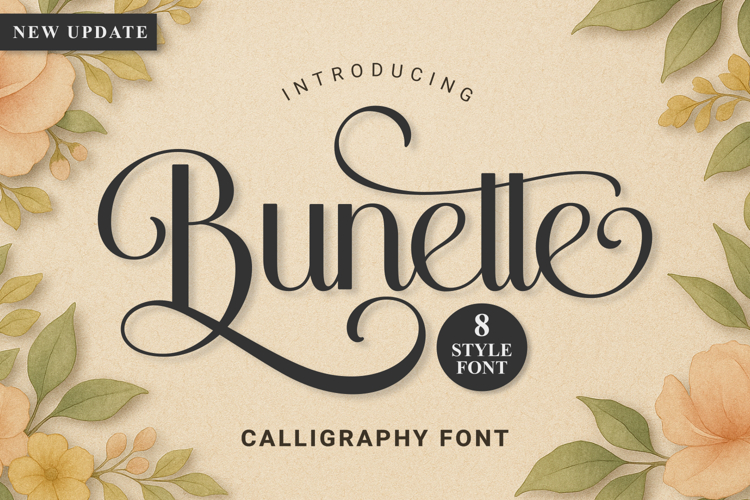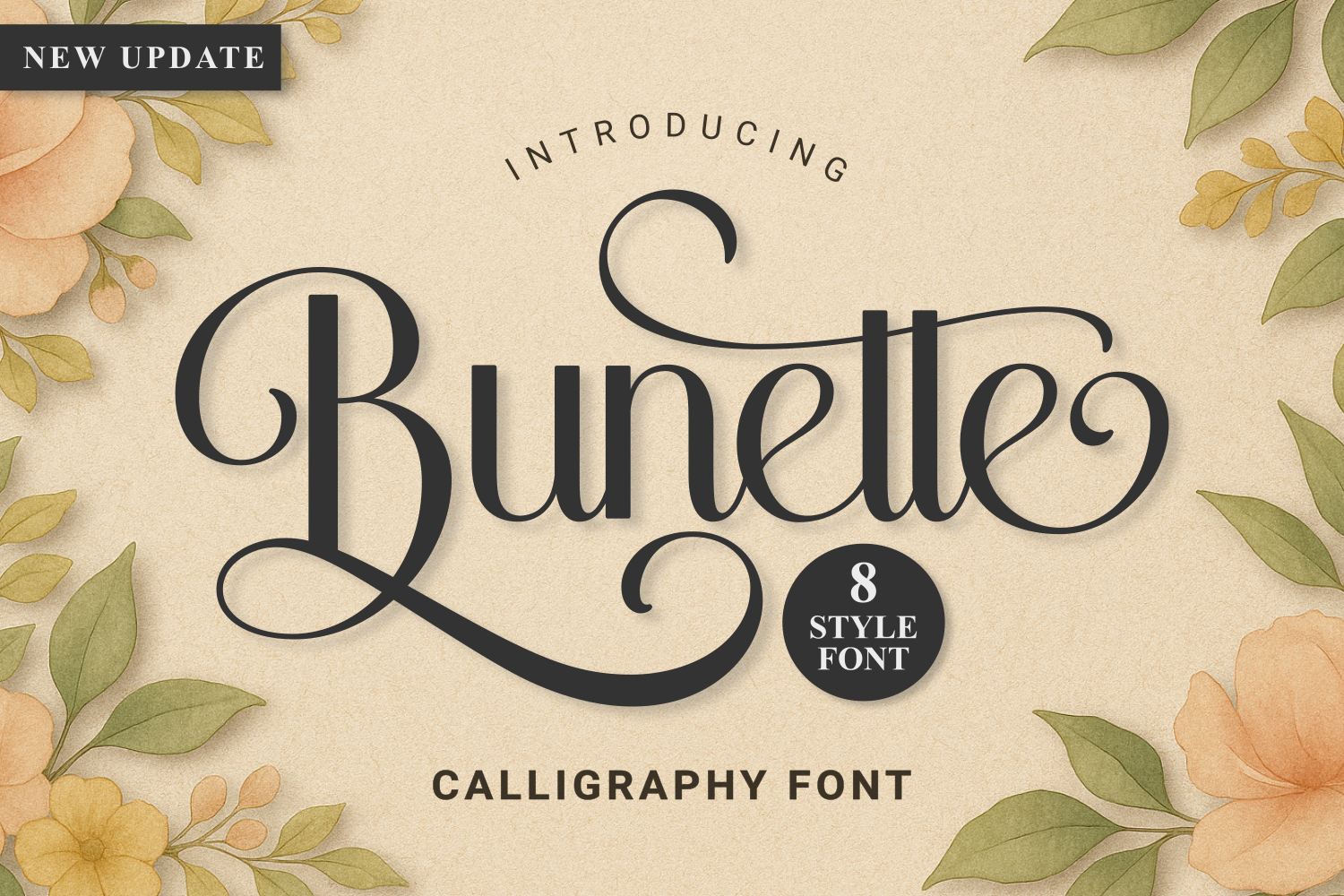
Bunette is a beautiful example of a modern calligraphy script font that highlights elegance, flow, and rich ornamental details, making it an ideal choice for designs that aim to convey a touch of luxury and beauty. Add it to your logos, labels, branding, invitations, websites, quotes, and more, and it will boost your designs and make them a true standout!